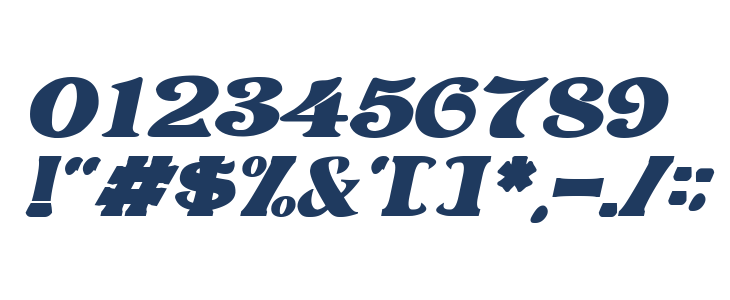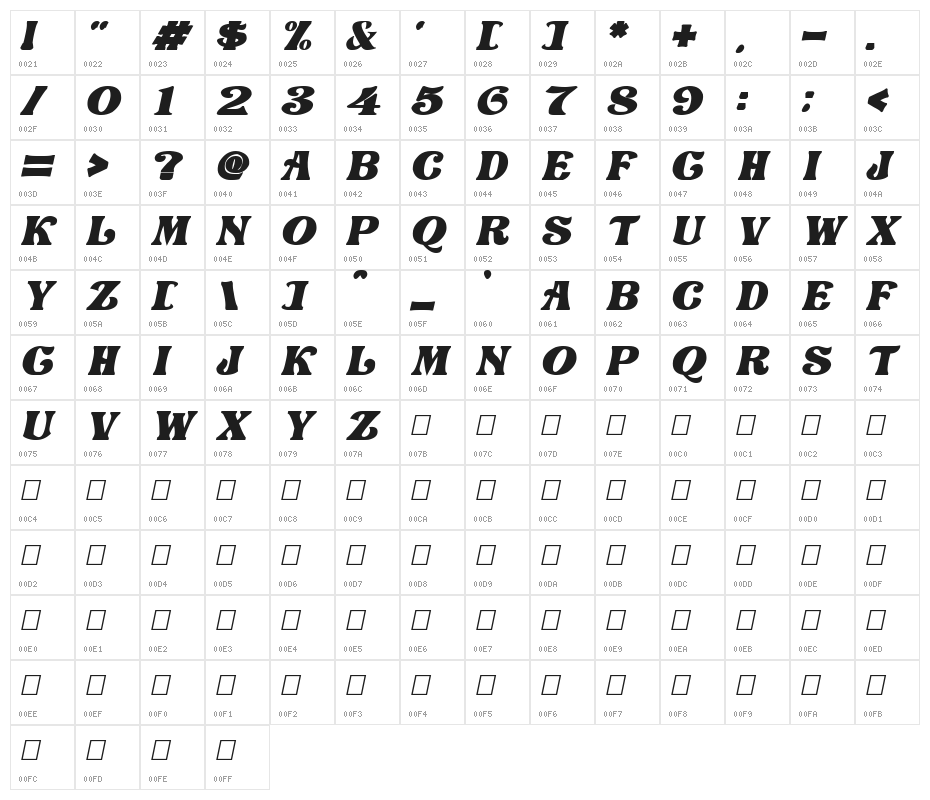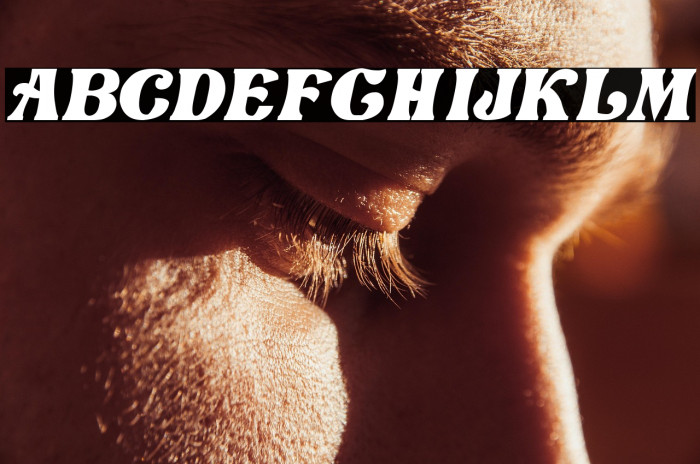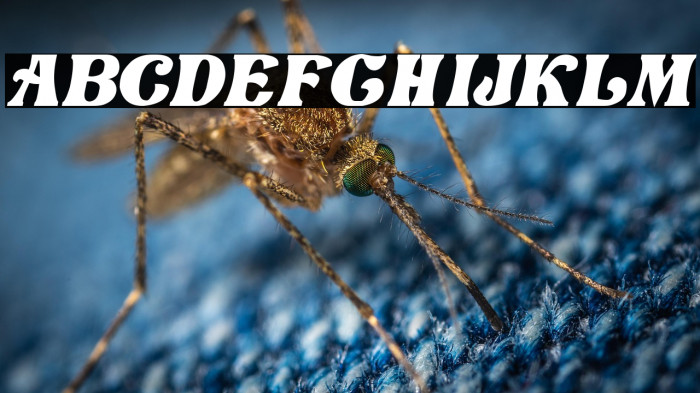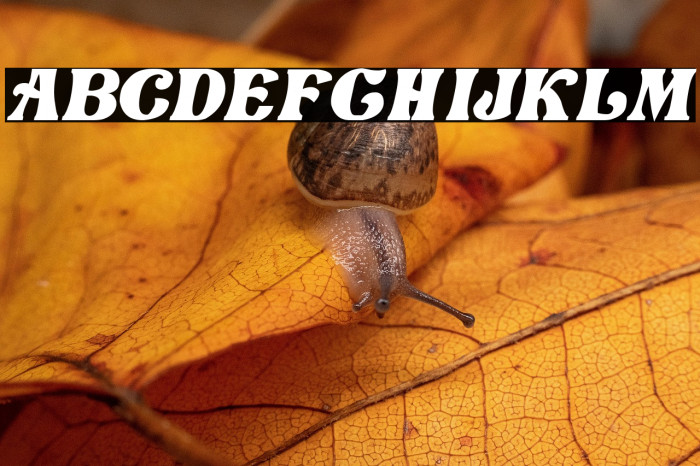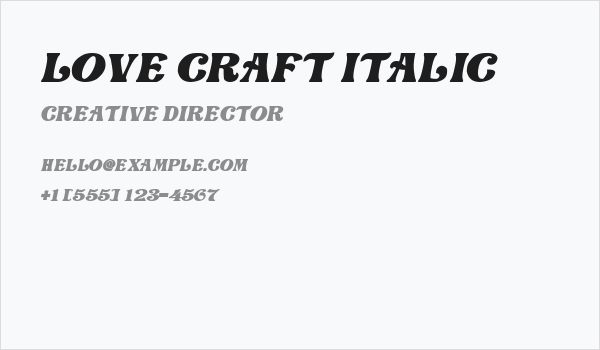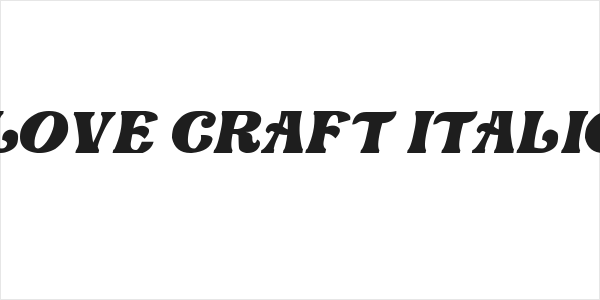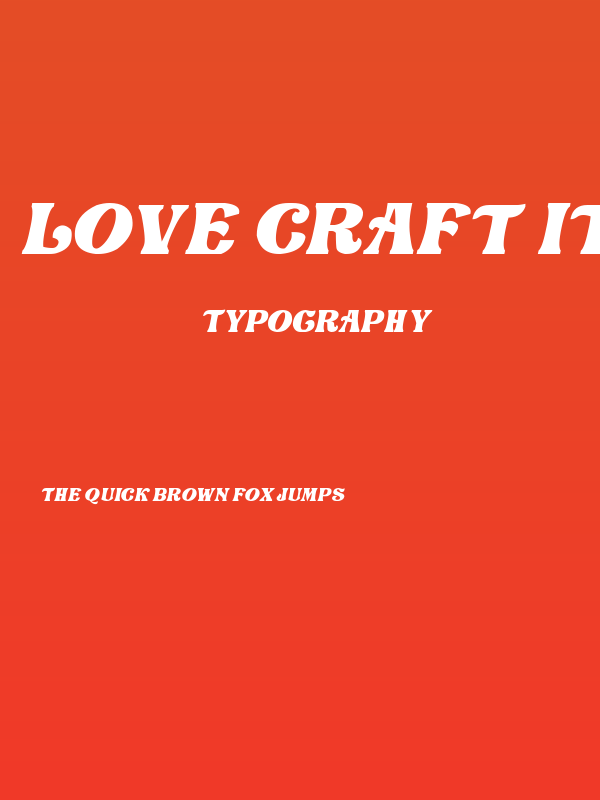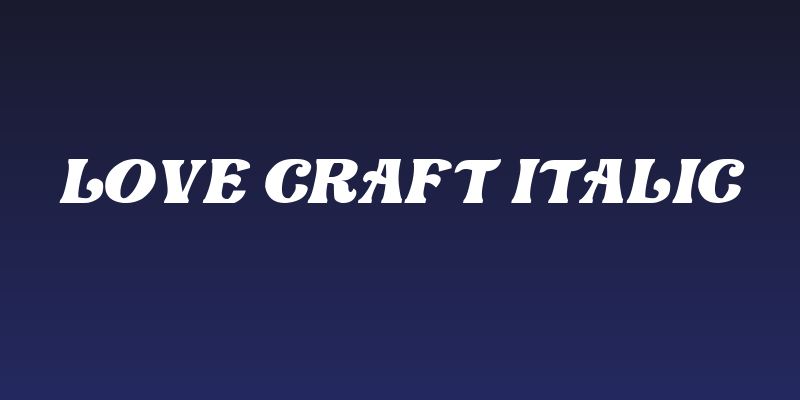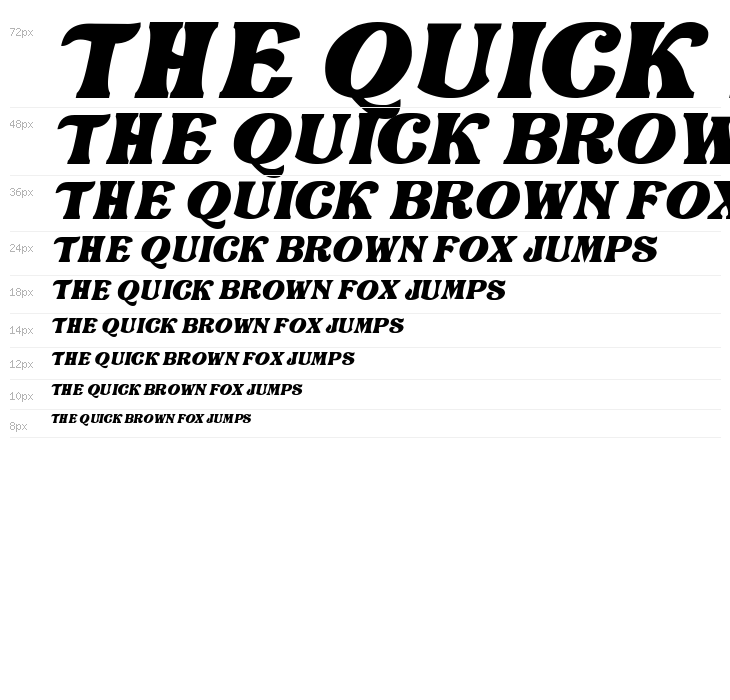
Love Craft Italic Font
Love Craft Italic Description
This font features a bold and dynamic style with a strong italic slant, giving it a sense of movement and energy. The characters are thick and robust, with exaggerated curves and sharp edges that create a dramatic and eye-catching appearance. The uppercase and lowercase letters maintain a consistent style, with the lowercase letters slightly smaller but equally bold. The numbers are equally stylized, maintaining the same boldness and flair as the alphabetic characters. Special characters are included, each designed to match the overall aesthetic, making this font versatile for various uses. The font's unique style makes it suitable for projects that require a strong visual impact.